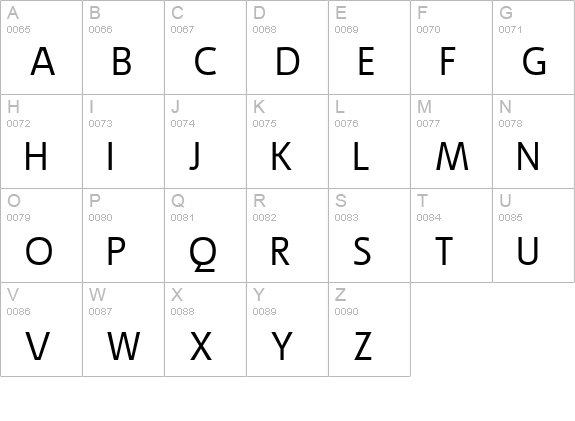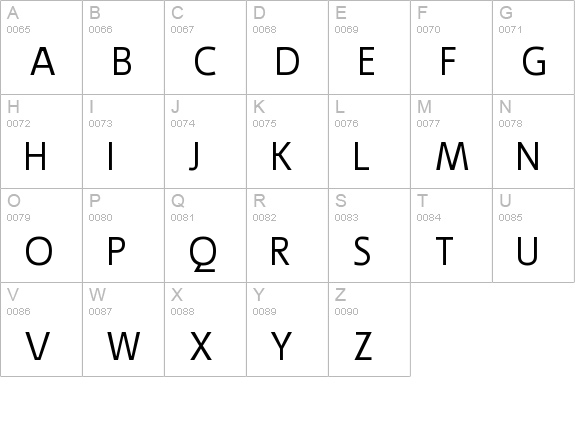
Ligurino is a stunning and versatile font that seamlessly blends modern elegance with timeless charm. Its sleek lines and graceful curves make it perfect for a wide range of design projects, from branding to editorial design. Whether you're creating a sophisticated logo or designing an eye-catching poster, Ligurino is sure to make a lasting impression. What sets Ligurino apart is not just its beauty, but also its accessibility. This exquisite font is available for free download at FontsMarket.com, allowing designers and creatives of all kinds to easily incorporate its elegance into their work. With Ligurino, you have the freedom to elevate your designs without breaking the bank. Embrace the beauty and versatility of Ligurino font today, and discover the endless creative possibilities that come with this stunning typeface. Download it for free at FontsMarket.com and let your creativity soar.